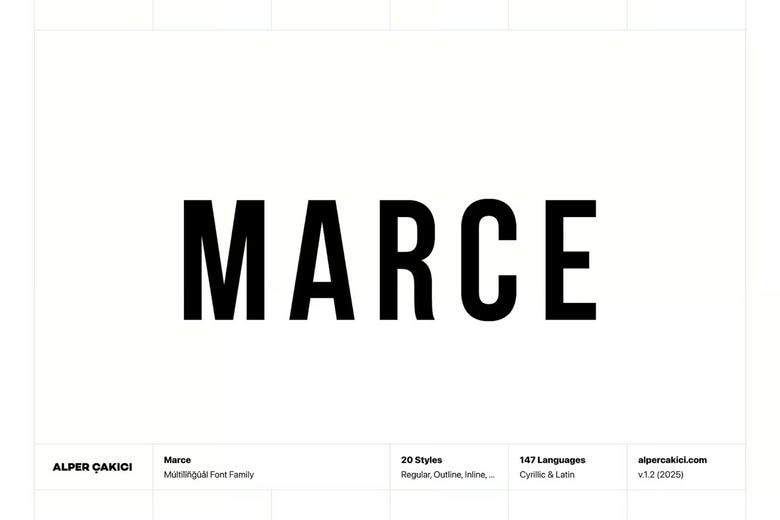
Marce Font Family
Marce is a versatile sans-serif font with a clean look inspired by stencil designs. It works with both Latin and Cyrillic scripts, so it can be used for many languages, including Afrikaans, Albanian, Azerbaijani, Bashkir, Basque, Belarusian, Bemba, Bosnian, Breton, Bulgarian, Catalan, Cebuano, Chechen, Chuvash, Cornish, Croatian, Czech, Danish, Dutch, English, Esperanto, Estonian, Faroese, Filipino, Finnish, French, Galician, German, Hungarian, Icelandic, Indonesian, Irish, Italian, Javanese, Kazakh, Latvian, Lithuanian, and more.
Marce Sans Serif Font Family